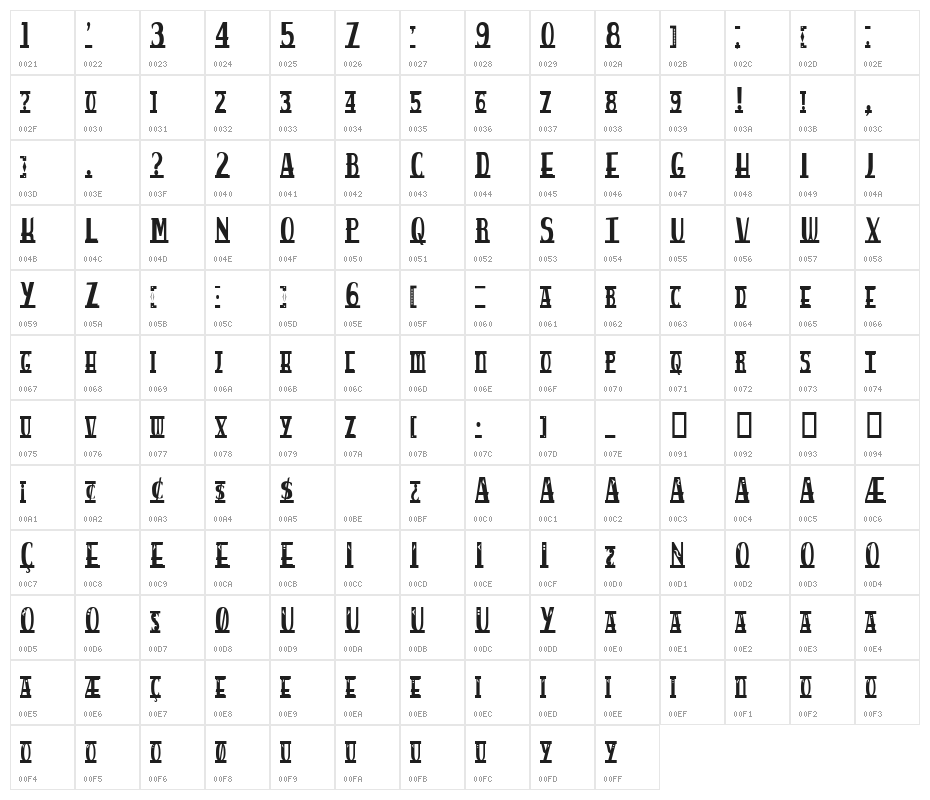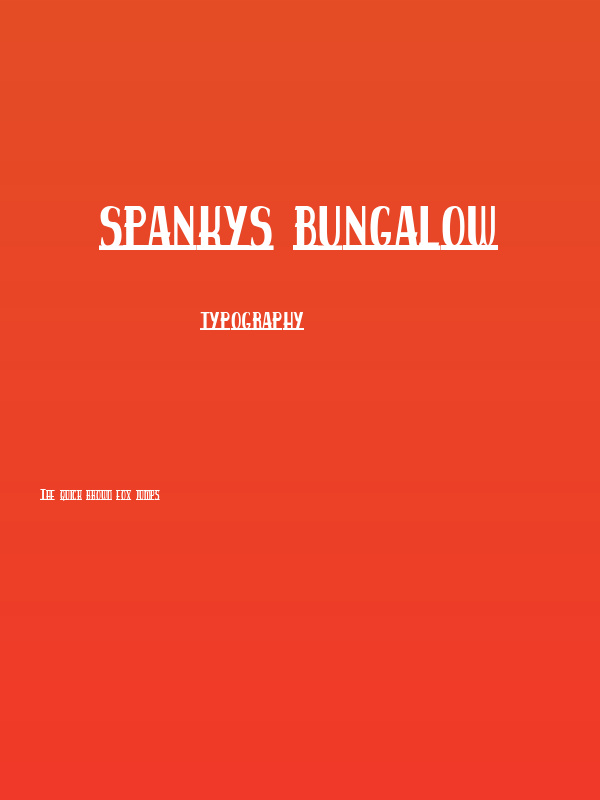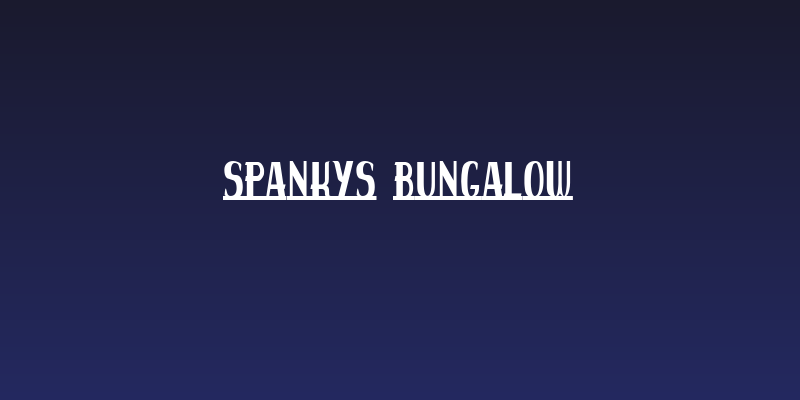
spankys bungalow Font
spankys bungalow Description
This font features a bold and striking design with a strong presence, characterized by its thick, uniform strokes and a distinct slab serif style. The uppercase letters are particularly prominent, with a consistent height and width that gives them a commanding appearance. The lowercase letters maintain the same boldness, ensuring readability and impact. The numbers are equally bold, making them suitable for attention-grabbing displays. Special characters are designed to match the overall aesthetic, providing a cohesive look across all elements. This font's robust and structured form makes it ideal for projects that require a strong visual statement.
| Proposed Projects | Ideal for posters, headlines, branding, and any project needing a bold, impactful typeface. |